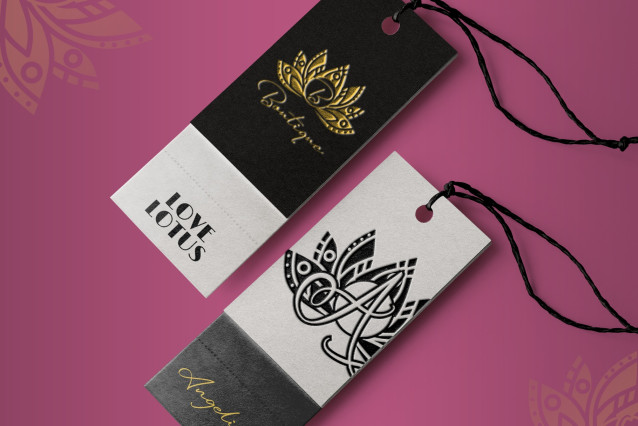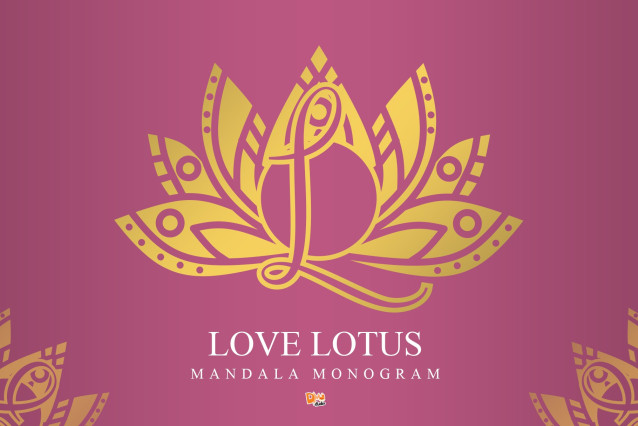
Love Lotus Mandala Monogram Font
Love Lotus Mandala Monogram is a beautifully romantic monogram font that blends the timeless symbolism of the lotus flower with intricate mandala patterns. Perfect for wedding stationery, love-themed branding, and personalized gifts, this font captures elegance and affection in every detail. Each character is adorned with delicate curves and symmetrical designs, making it a standout choice for heartfelt and meaningful projects.